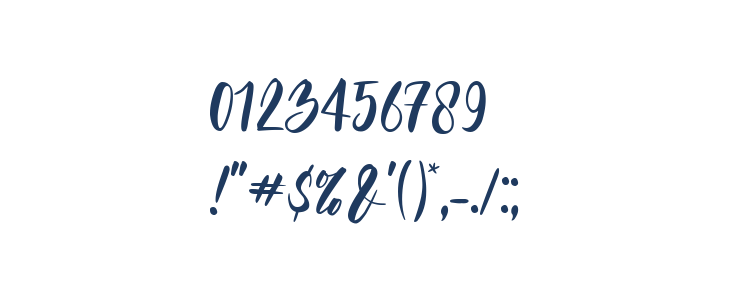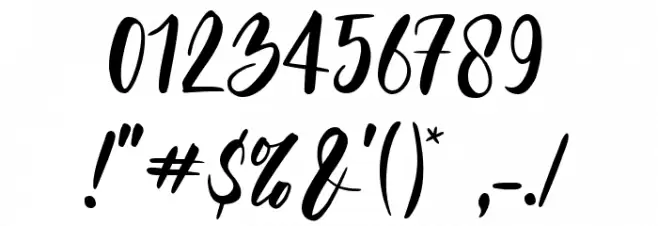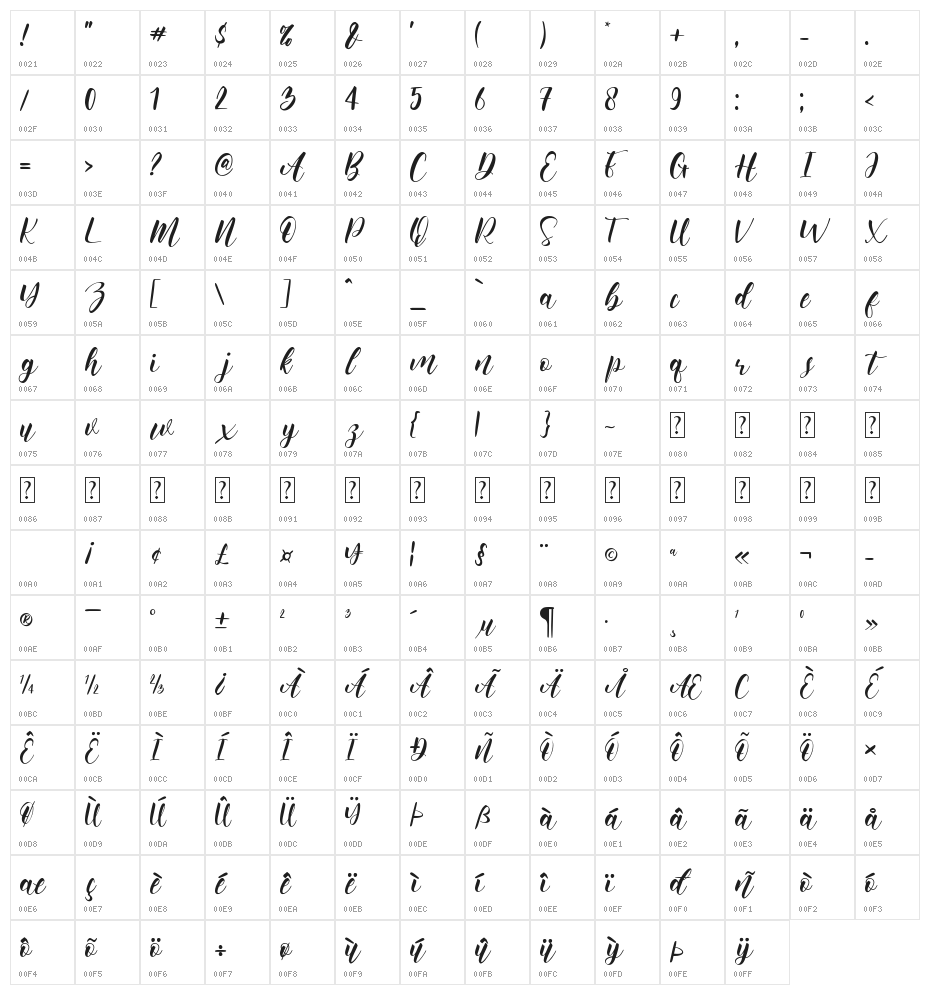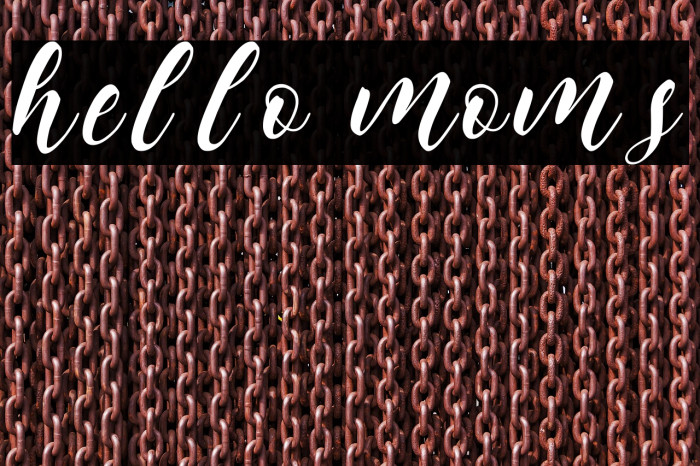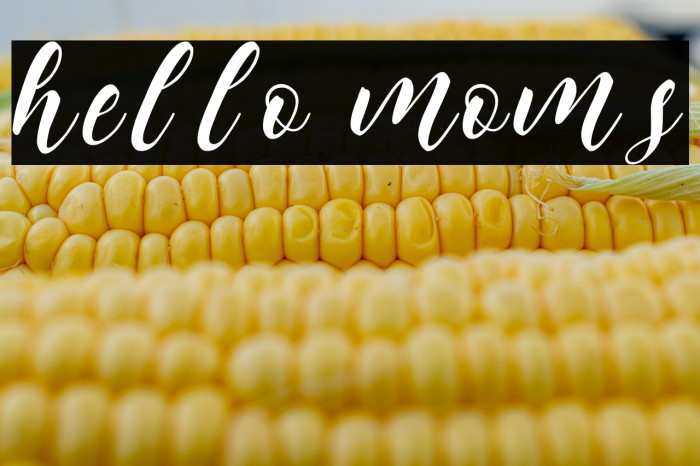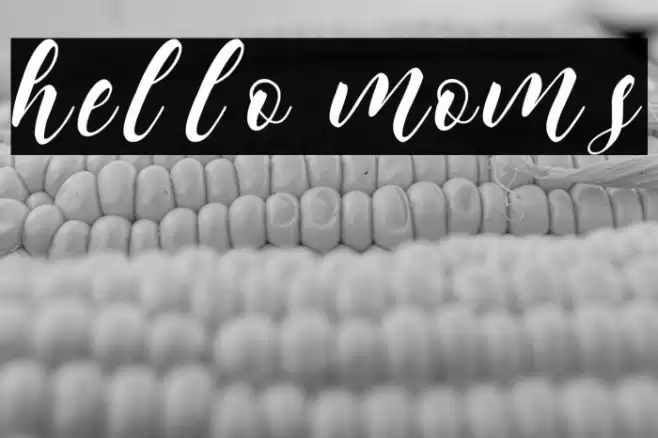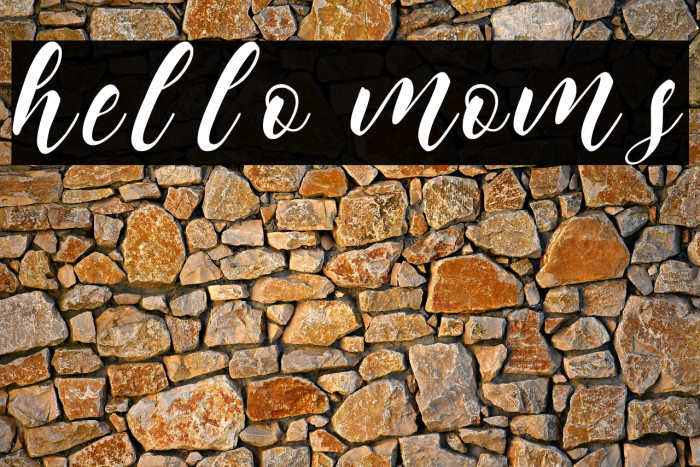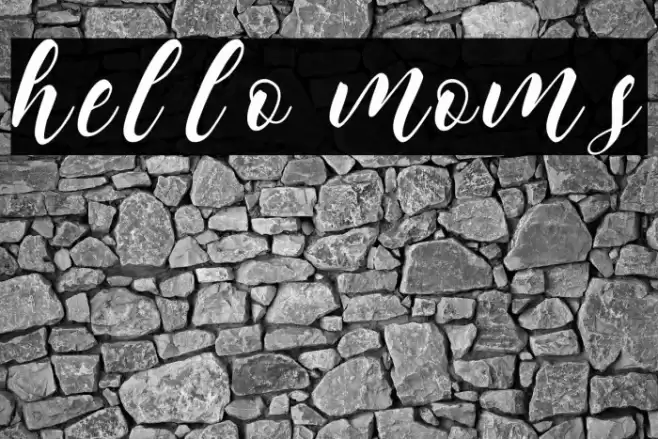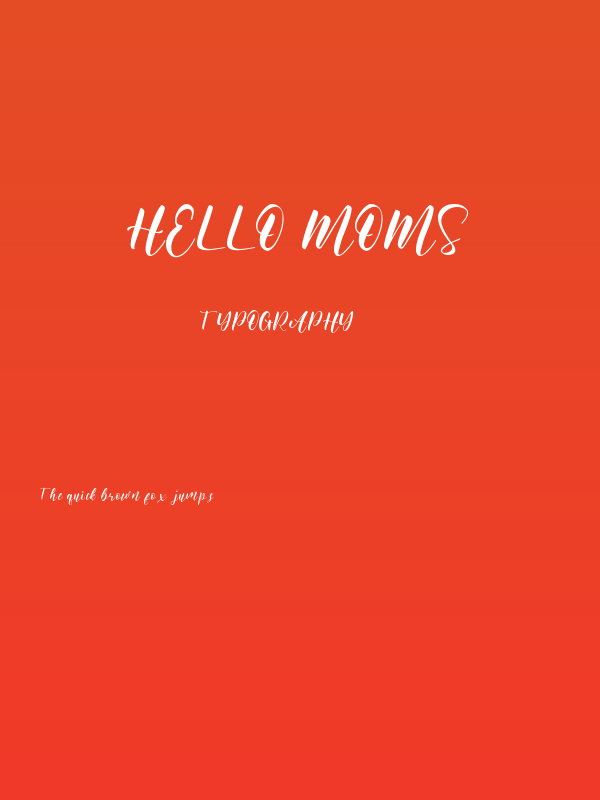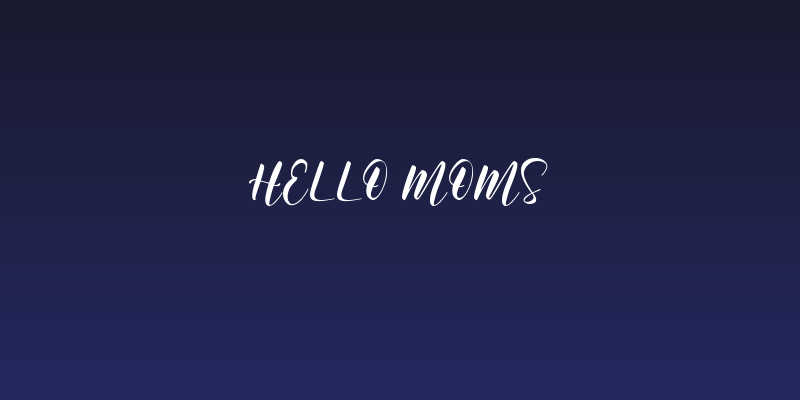
hello moms Font
hello moms Description
This font exhibits a flowing, cursive style that is both elegant and dynamic. The characters are interconnected with smooth, sweeping strokes, giving it a handwritten appearance. The uppercase letters are bold and slightly slanted, while the lowercase letters maintain a consistent rhythm with varying heights and loops. The numbers are equally stylized, maintaining the fluidity of the script. Special characters are integrated seamlessly, adding to the font's versatility. The overall design is expressive and artistic, making it suitable for creative projects.
| Proposed Projects | Ideal for wedding invitations, greeting cards, branding, and artistic projects. |